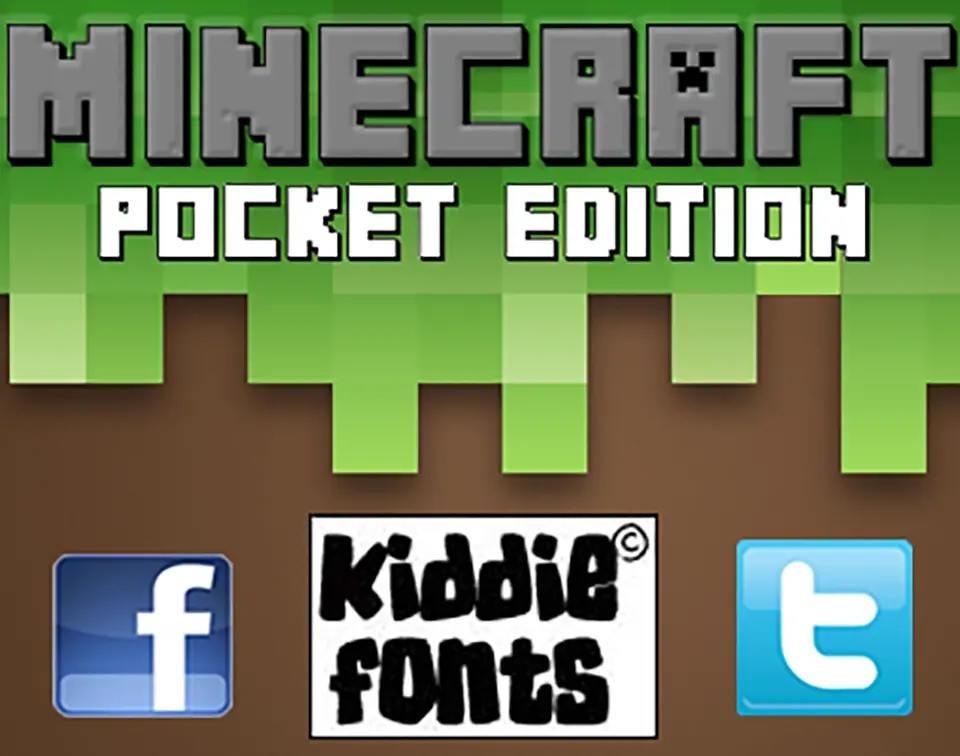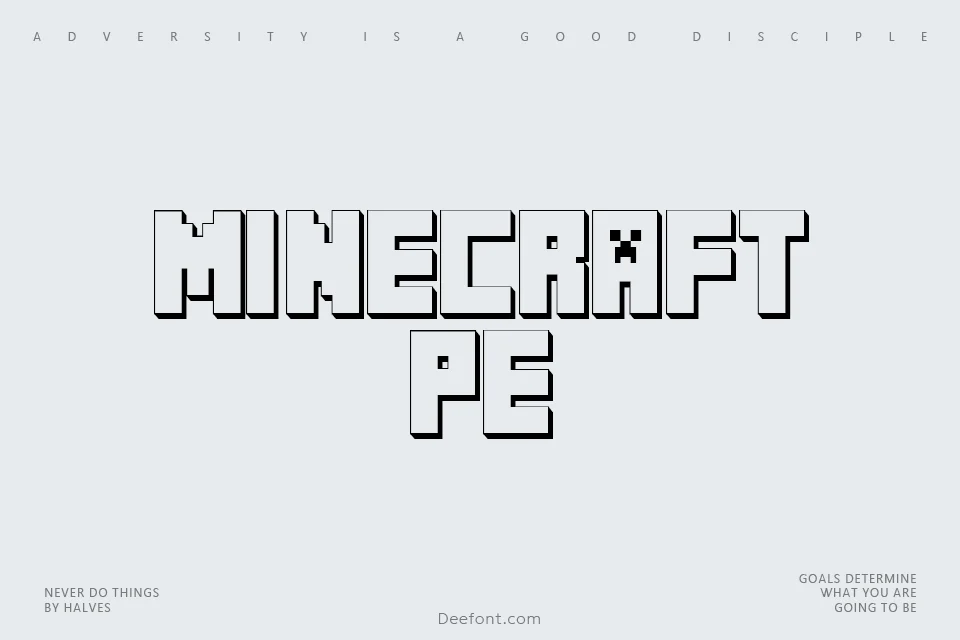
Minecraft PE Font
Minecraft PE is a bold, pixelated font with a retro gaming aesthetic designed to evoke classic video game style. This decorative typeface features a distinctive blocky design with sharp angular lines and uniform thickness, creating a monospaced appearance ideal for headlines, logos, and gaming-related projects. The font contains 140 carefully crafted characters with consistent character spacing, making it perfect for titles, posters, and tech-related branding that demands a digital, nostalgic aesthetic. Its unique square construction and playful design make Minecraft PE an excellent choice for creative projects requiring retro or contemporary digital themes.